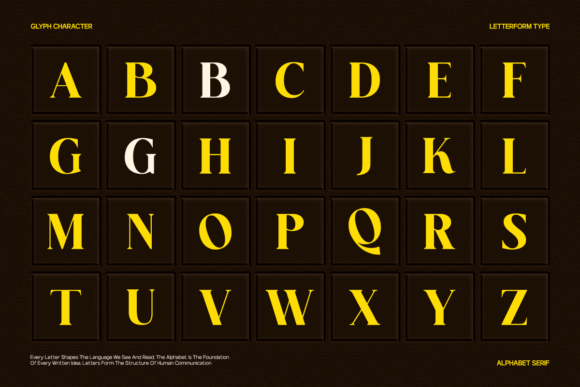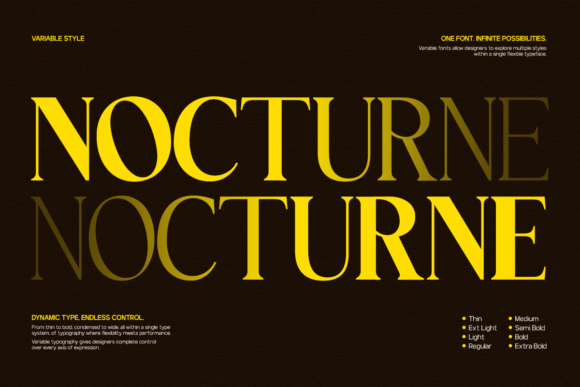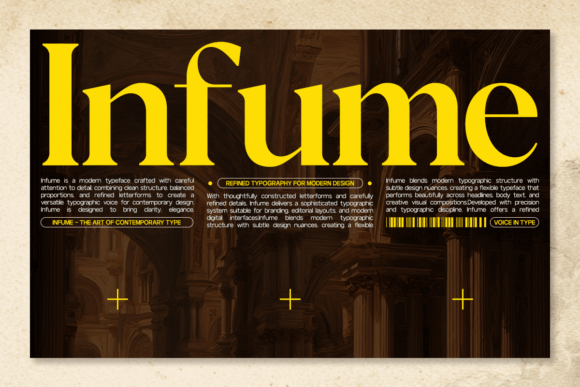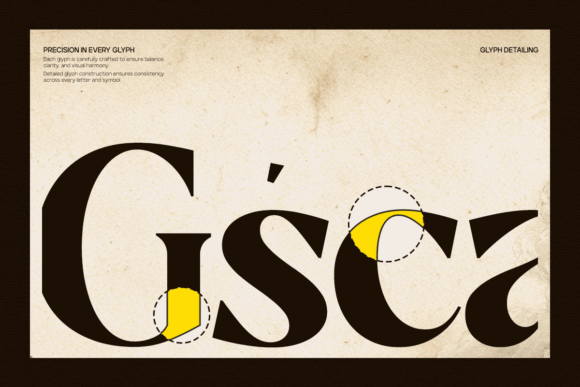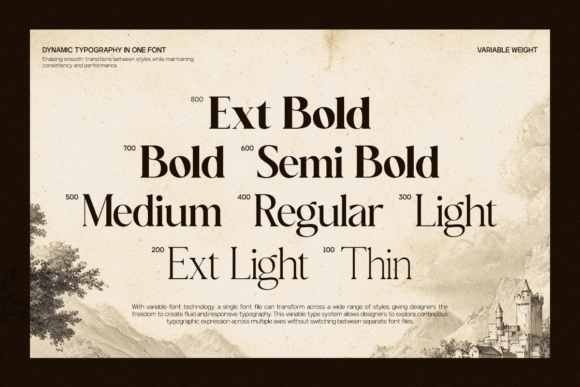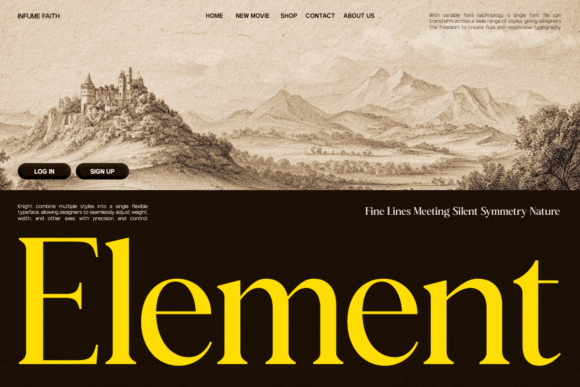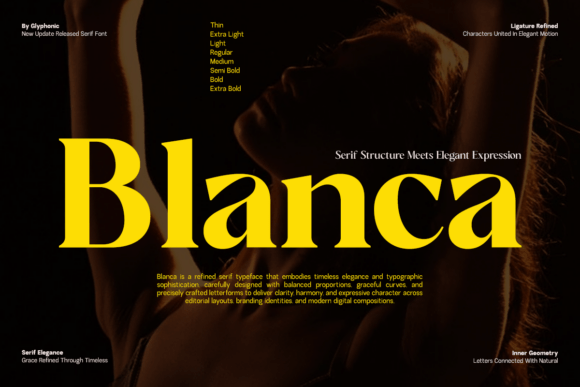
Discover the Timeless Elegance of Blanca Font
In the world of typography, few typefaces manage to convey a sense of timeless elegance and expressive sophistication. Blanca, a refined serif typeface, is one such exceptional design that embodies these qualities. With its delicate ligatures and carefully crafted shapes, Blanca enhances its expressive character, making it an ideal choice for designs that demand elegance and emotional depth.
The Art of Elegance: Delicate Ligatures and Crafted Shapes
Blanca’s design is characterized by the presence of delicate ligatures, which add a touch of sophistication to any text. These ligatures are carefully crafted to create a seamless flow between letters, resulting in a harmonious and refined visual experience. The typeface’s shapes are also meticulously designed to contribute to its expressive character, making Blanca a versatile choice for a wide range of design applications.
Versatility Across Media: Digital and Print
One of the standout features of Blanca is its ability to perform beautifully across both digital and print media. This versatility makes it an excellent choice for designers who work across multiple platforms. Whether you’re creating editorial layouts, fashion branding, luxury packaging, or modern visual compositions, Blanca is up to the task. Its clarity and readability remain intact, ensuring that your message is conveyed with precision and style.
Exploring Hierarchy: A Range of Weights
Blanca’s versatile weight range is another significant advantage for designers. With options ranging from light and airy text to bold and impactful headlines, Blanca allows you to explore hierarchy in your designs while maintaining consistency and readability. This flexibility is invaluable for creating visually appealing compositions that guide the viewer’s eye through the content. Whether you’re working on a sophisticated magazine spread, a luxury brand’s website, or an artistic layout, Blanca provides the tools you need to achieve your creative vision.
Ideal Applications for Blanca
Given its elegant and expressive nature, Blanca is particularly well-suited for several design applications:
- Editorial Layouts: Bring sophistication to magazine and newspaper articles with Blanca’s refined serif character.
- Fashion Branding: Elevate fashion brands with a typeface that exudes luxury and style.
- Luxury Packaging: Use Blanca to add a touch of elegance to high-end product packaging.
- Modern Visual Compositions: Incorporate Blanca into your visual projects to add depth, elegance, and clarity.
Bringing Elegance and Clarity to Your Typography
Blanca is more than just a typeface; it’s a tool for designers and crafters to bring elegance, clarity, and expressive serif character to their typography. Whether you’re creating sophisticated headlines, refined branding, or artistic layouts, Blanca offers the perfect blend of form and function. Its ability to convey emotional depth and add a touch of sophistication to any design makes it an invaluable asset in the world of typography.
| Font Name | Blanca Font |
| Author | Glyphonic |
In conclusion, Blanca Font stands out as a refined serif typeface that embodies timeless elegance and expressive sophistication. With its delicate ligatures, carefully crafted shapes, and versatile weight range, Blanca is an ideal choice for designers looking to add a touch of elegance and emotional depth to their designs. Whether you’re working on digital or print projects, Blanca’s performance and versatility make it a valuable addition to your typographic arsenal.
Discover the beauty and versatility of Blanca Font for yourself and elevate your designs with a typeface that truly understands the value of elegance and expressive character.